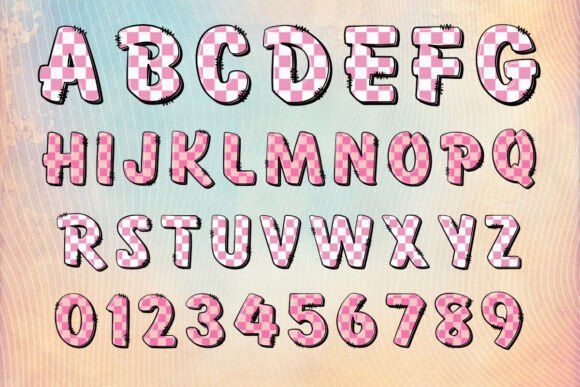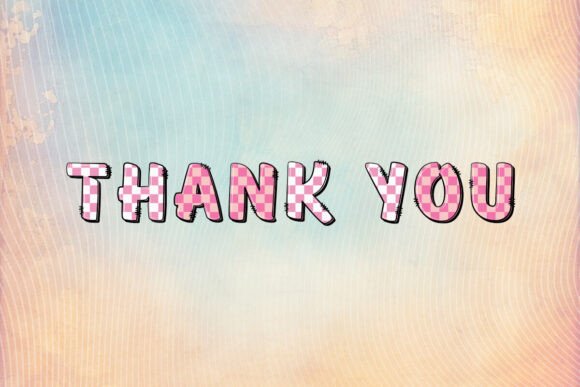
Introduction to Mama Valentine Font Font
Fonts play a crucial role in design, and the Mama Valentine Font font is a typeface that brings both character and versatility to any project. Whether you’re working on a branding project, a website, or a print design, the Mama Valentine Font font offers a unique style that can elevate your work.
Introducing Mama Valentine Love Retro Alphabet Font.
Exuding a nostalgic charm, this OpenType format font brings the vintage vibe back with a modern punch It contains 26 meticulously crafted alphabets and 10 numerical figures, perfect for those who adore past eras.
Key Features of Mama Valentine Font Font
Why Choose Mama Valentine Font Font?
The Mama Valentine Font font is more than just a typeface – it’s a design tool that helps you communicate your message with style and clarity. Its unique character set and versatile design make it suitable for a wide range of applications, from elegant invitations to bold headlines.
With its carefully crafted letterforms and balanced proportions, the Mama Valentine Font font ensures readability and visual appeal across all mediums.
What makes Mama Valentine Font font special?
The Mama Valentine Font font stands out with its unique design, exceptional readability, and versatility across various design applications.